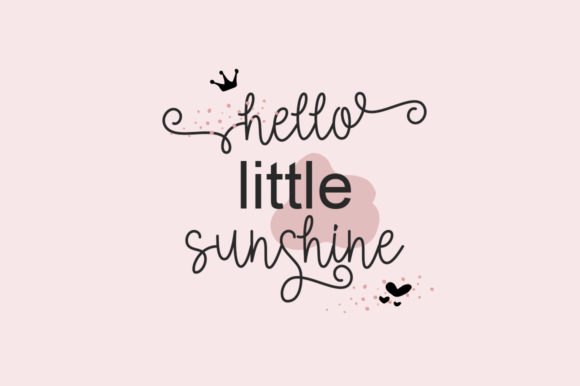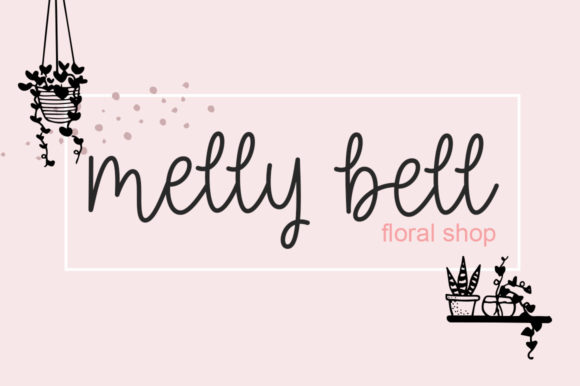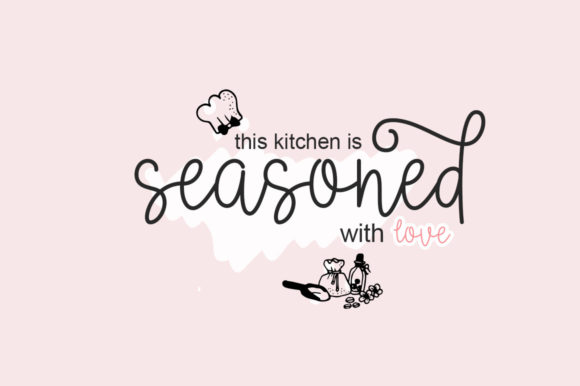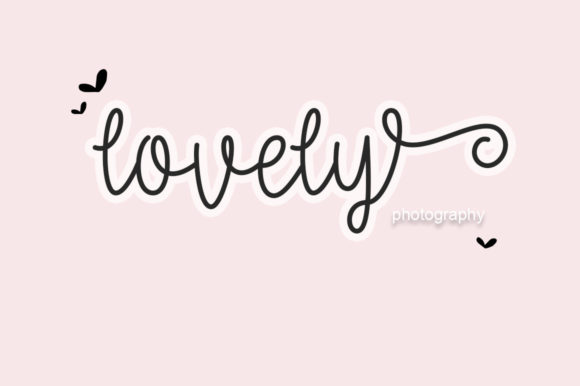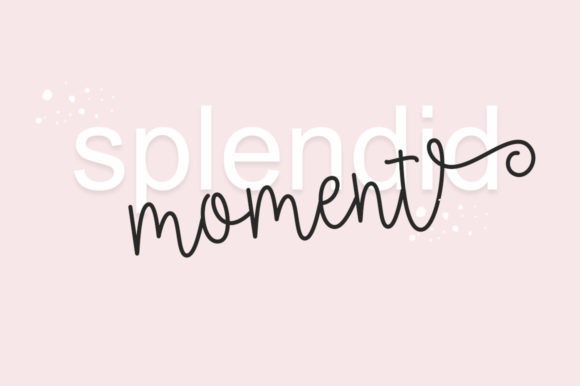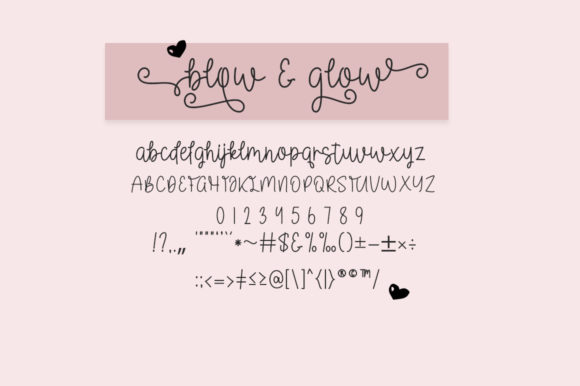
Introducing Blow & Glow Font: Elevate Your Designs with a Touch of Vintage Elegance
In the world of typography, fonts play a crucial role in conveying the tone and aesthetic of a design. For designers and crafters looking to add a touch of vintage charm to their creations, Blow & Glow Font is an excellent choice. This thin lettered and vintage script font is designed to bring a sense of elegance and sophistication to any project.
What Makes Blow & Glow Font Special?
Blow & Glow Font stands out from the crowd with its unique blend of thin lettering and vintage script elements. The font’s design is characterized by its delicate lines, flowing curves, and classic aesthetic, making it perfect for a wide range of design applications, from branding and packaging to invitations and digital media.
PUA Encoding for Easy Access to Glyphs and Ligatures
One of the key features that sets Blow & Glow Font apart is its PUA (Private Use Area) encoding. This means that users can access a wide range of glyphs and ligatures with ease, allowing for greater flexibility and creativity in their designs. With PUA encoding, designers can effortlessly incorporate special characters, swashes, and other unique elements into their work, taking their designs to the next level.
Blow & Glow Font is an excellent choice for designers and crafters looking to add a touch of vintage elegance to their creations. Whether you’re working on a branding project, creating invitations, or designing digital media, this font is sure to impress. Its versatility and classic aesthetic make it suitable for a wide range of design applications, from modern and minimalist to vintage and ornate.
Tips for Using Blow & Glow Font
To get the most out of Blow & Glow Font, here are a few tips to keep in mind:
- Use it as a headline font to add a touch of elegance and sophistication to your design.
- Pair it with a sans-serif font for a modern and stylish contrast.
- Take advantage of the font’s PUA encoding to access a wide range of glyphs and ligatures.
Why Choose Blow & Glow Font?
With so many fonts available, why choose Blow & Glow Font? Here are just a few reasons:
- Unique and elegant design that’s sure to stand out.
- PUA encoding for easy access to glyphs and ligatures.
- Versatile and suitable for a wide range of design applications.
- Perfect for designers and crafters looking to add a touch of vintage charm to their creations.
| Font Name | Blow & Glow Font |
| Author | jauzadesign |
Blow & Glow Font is a beautiful and elegant font that’s perfect for designers and crafters looking to add a touch of vintage charm to their creations. With its unique design, PUA encoding, and versatility, it’s an excellent choice for a wide range of design applications. Whether you’re working on a branding project, creating invitations, or designing digital media, Blow & Glow Font is sure to impress.